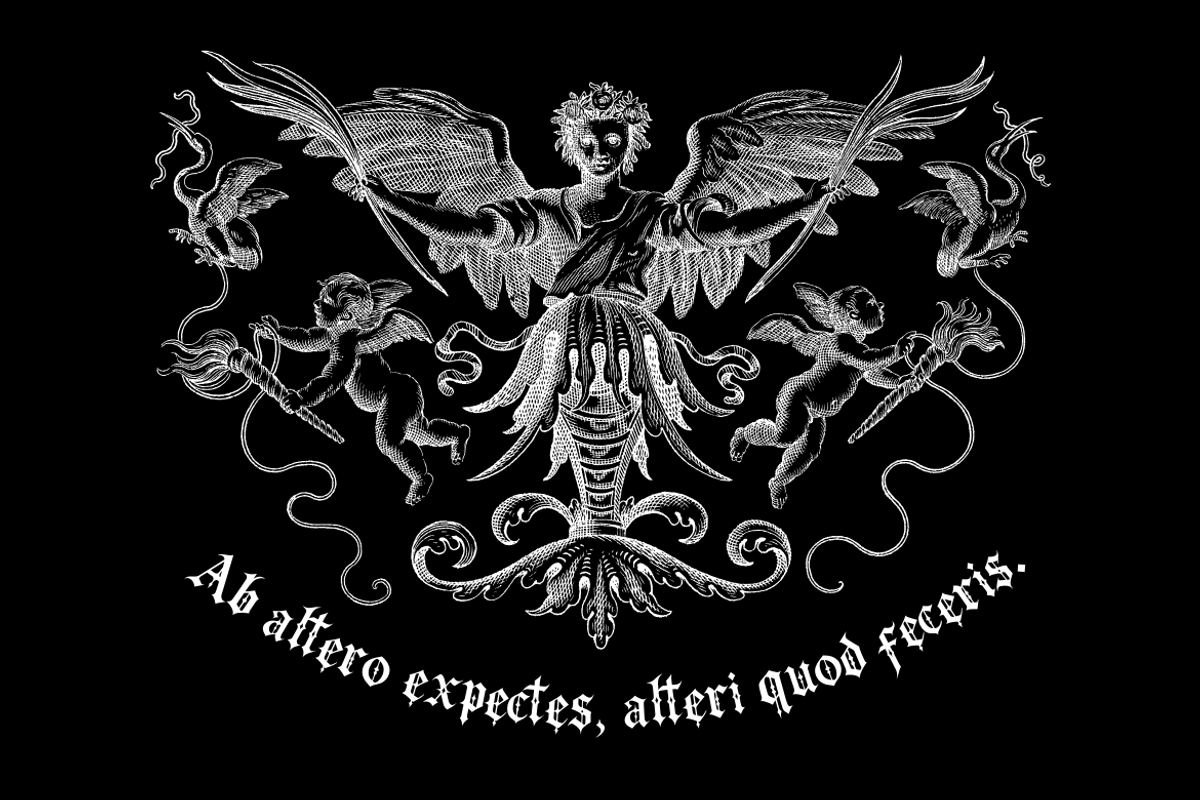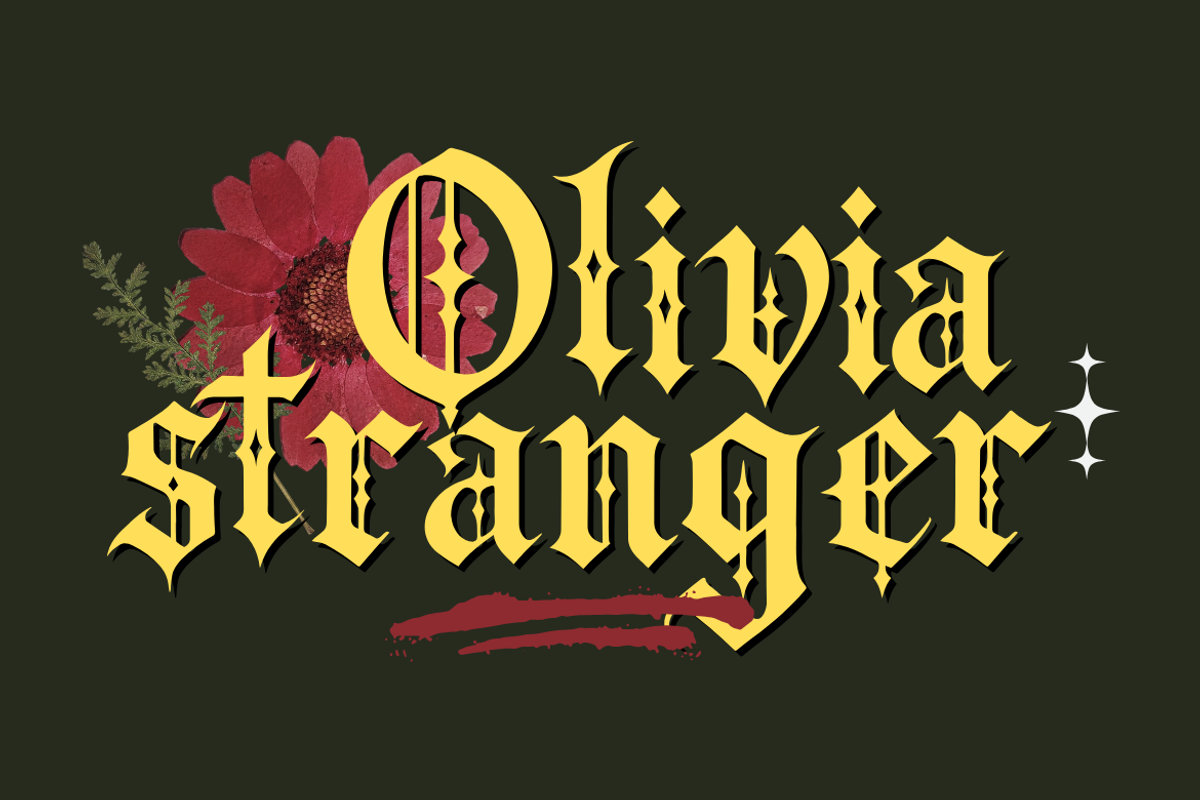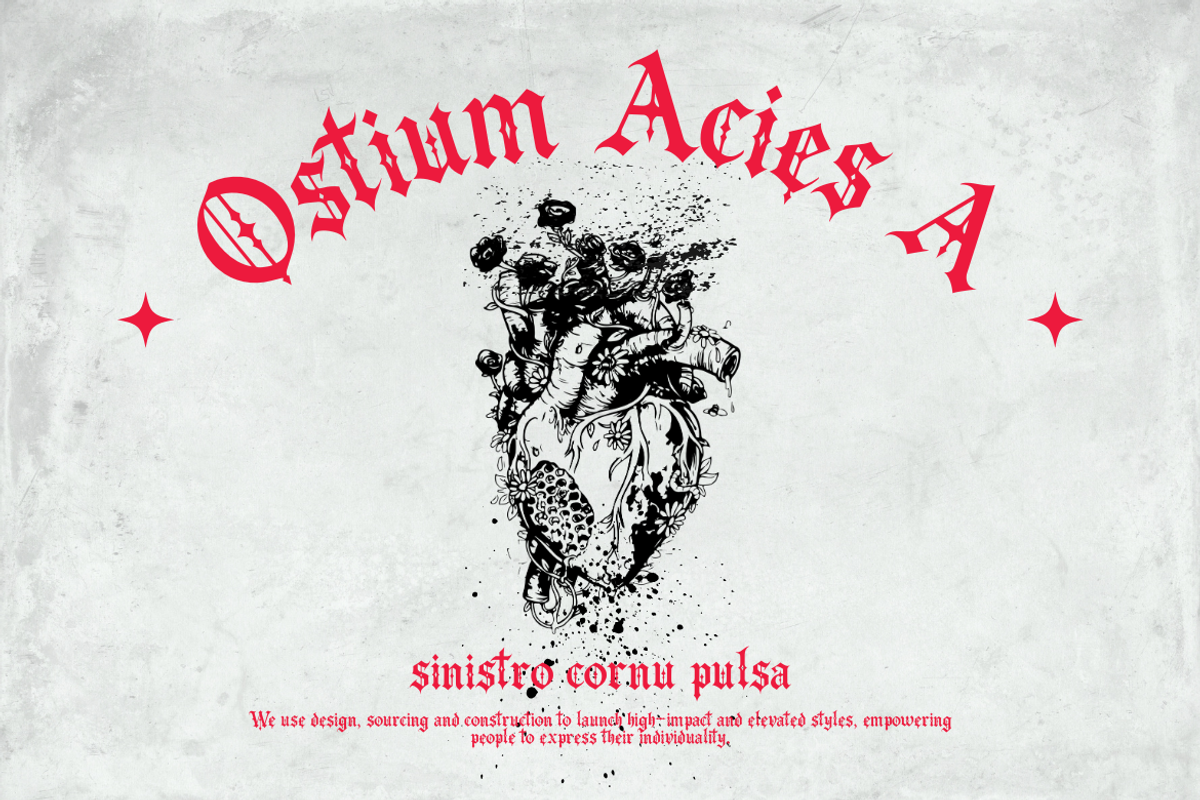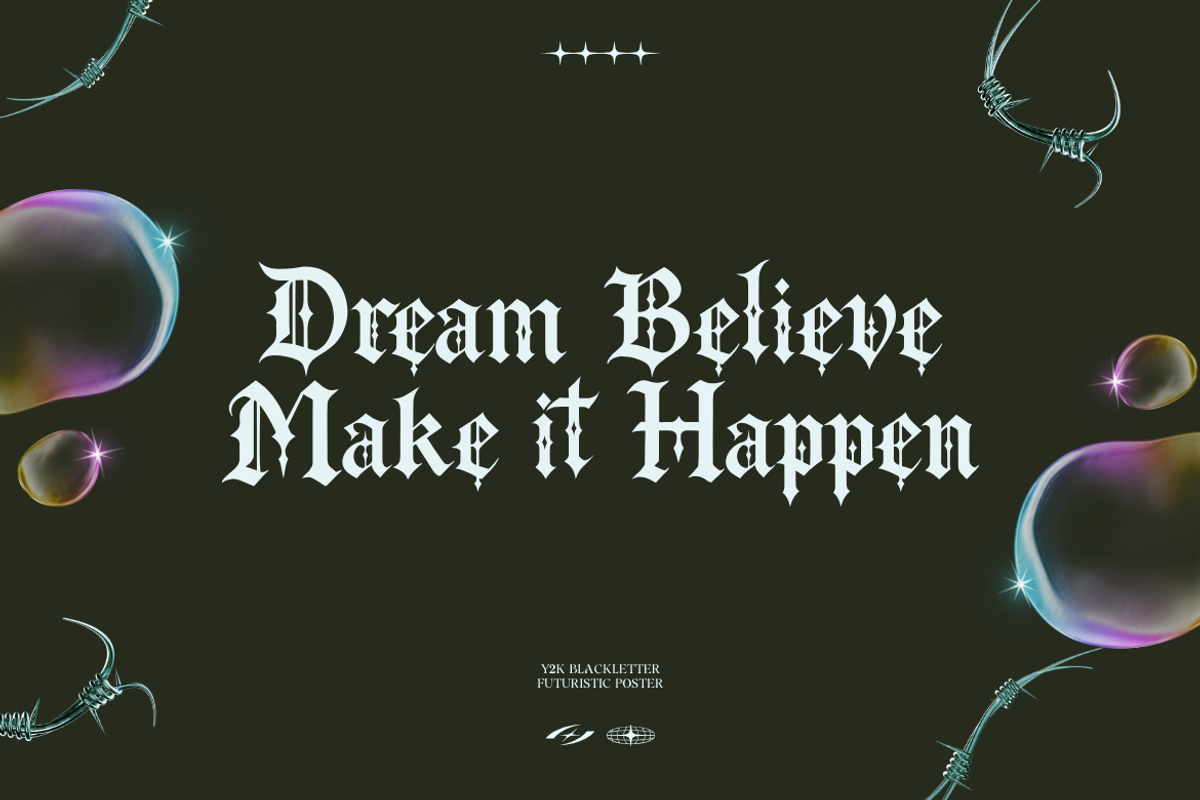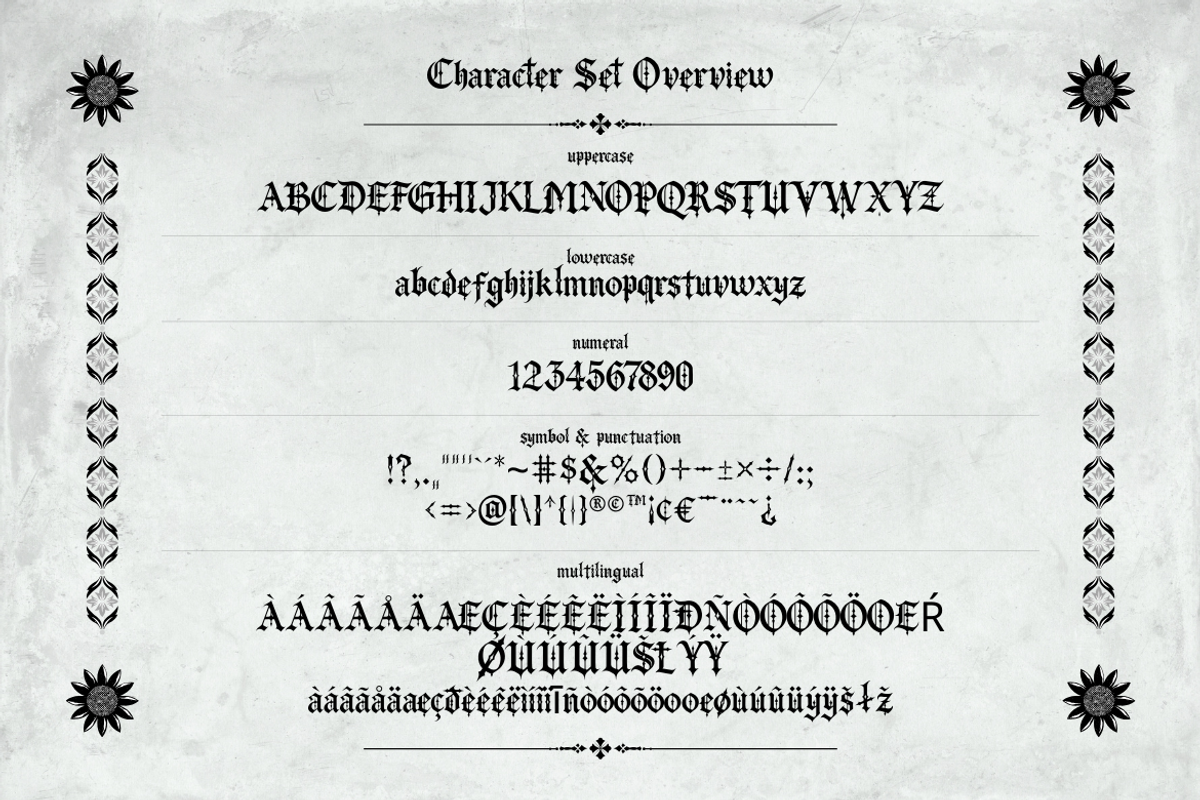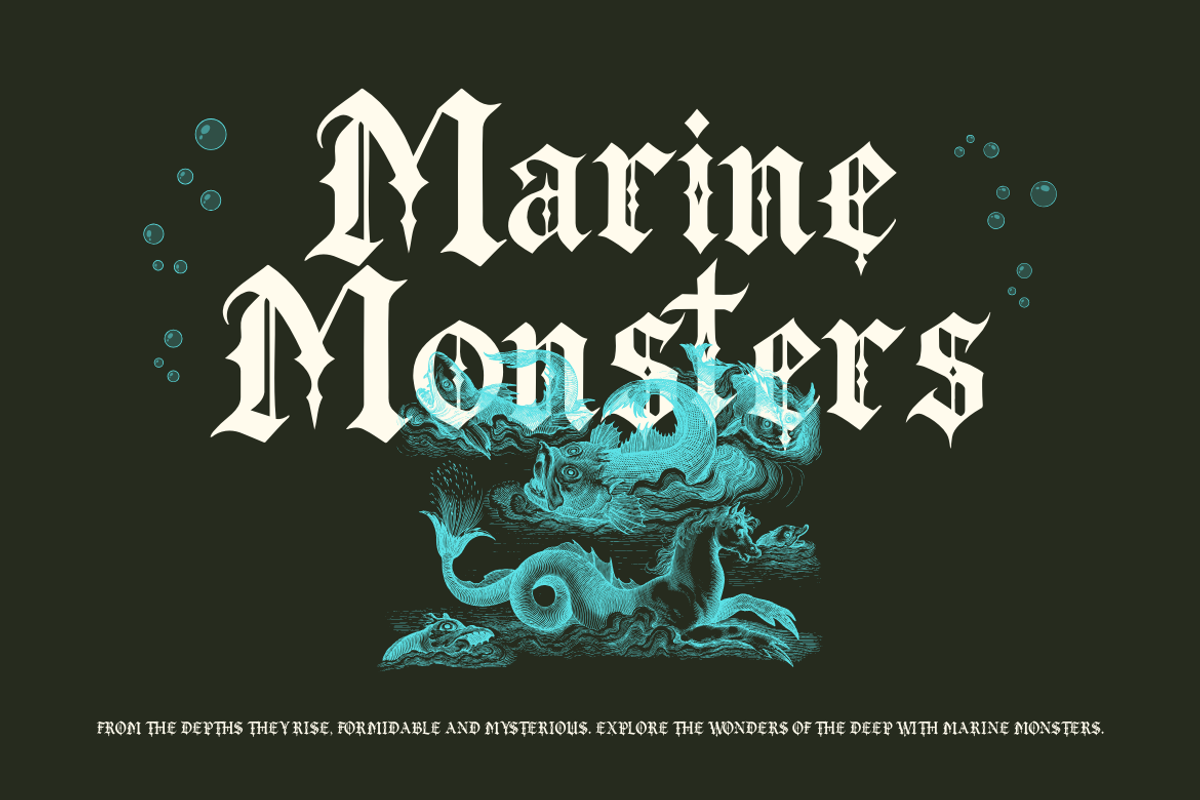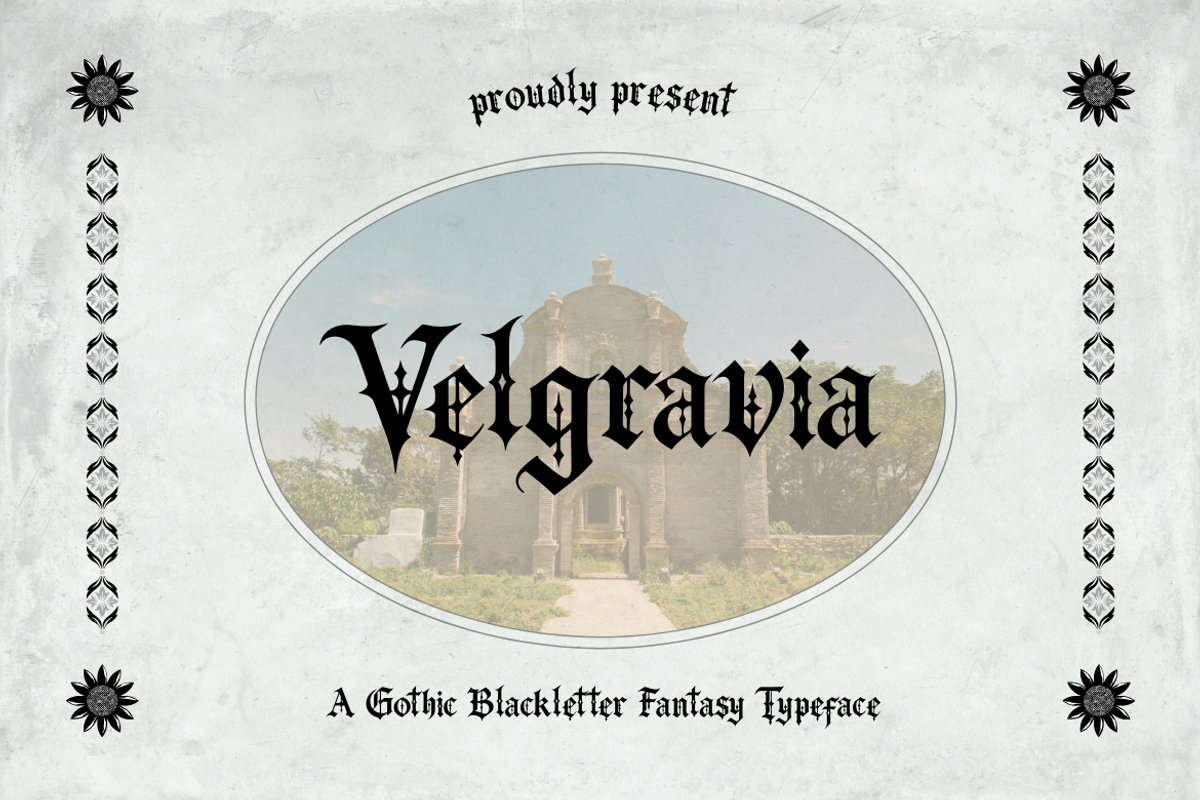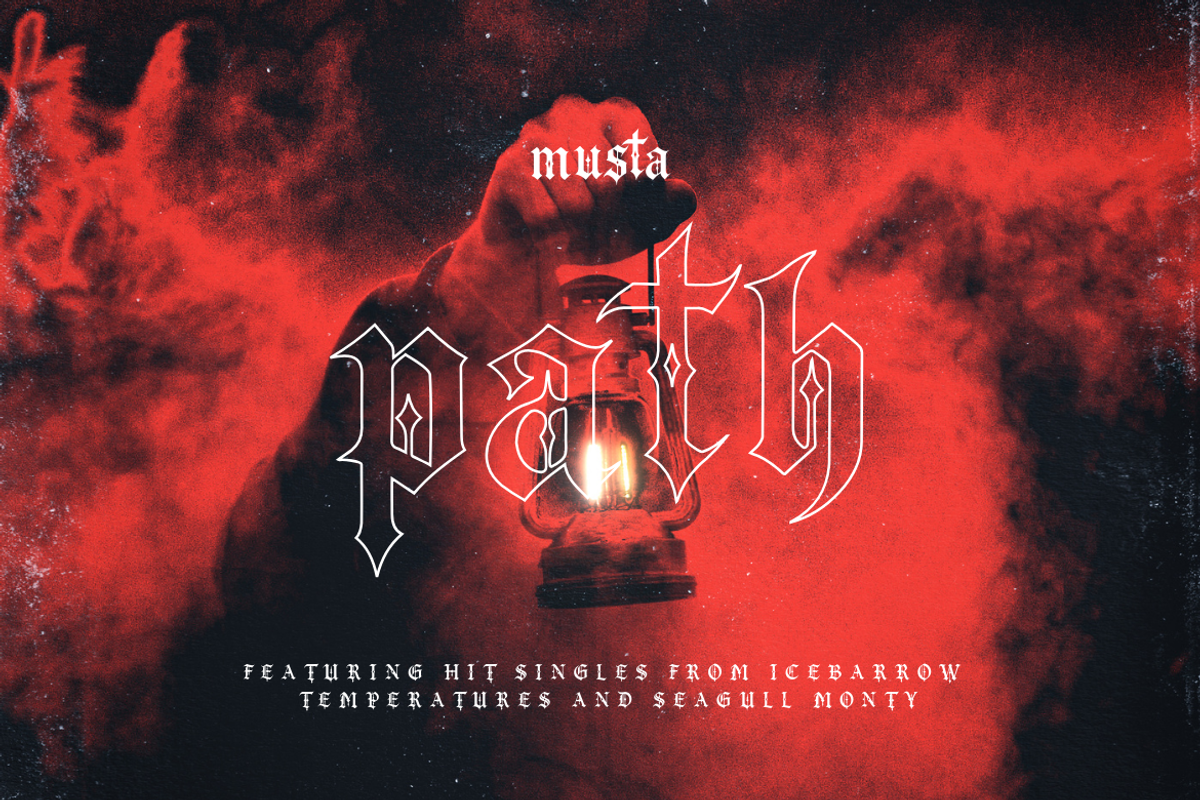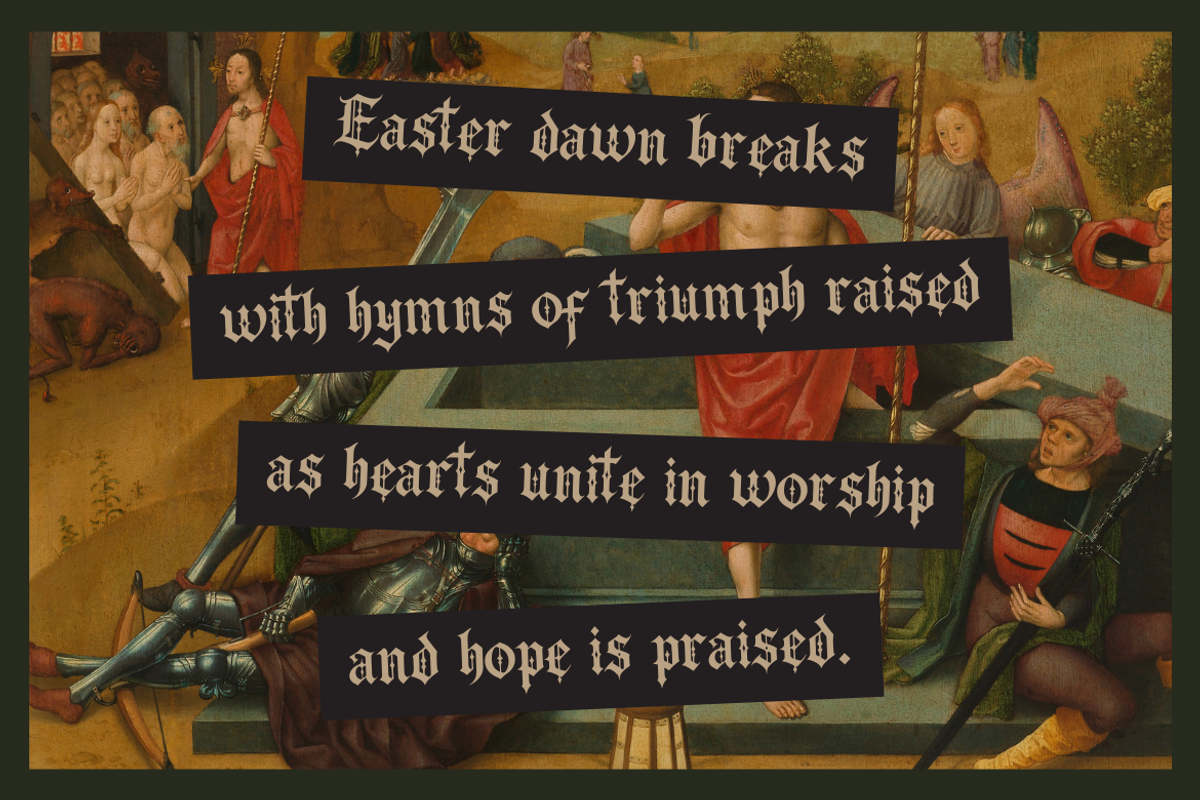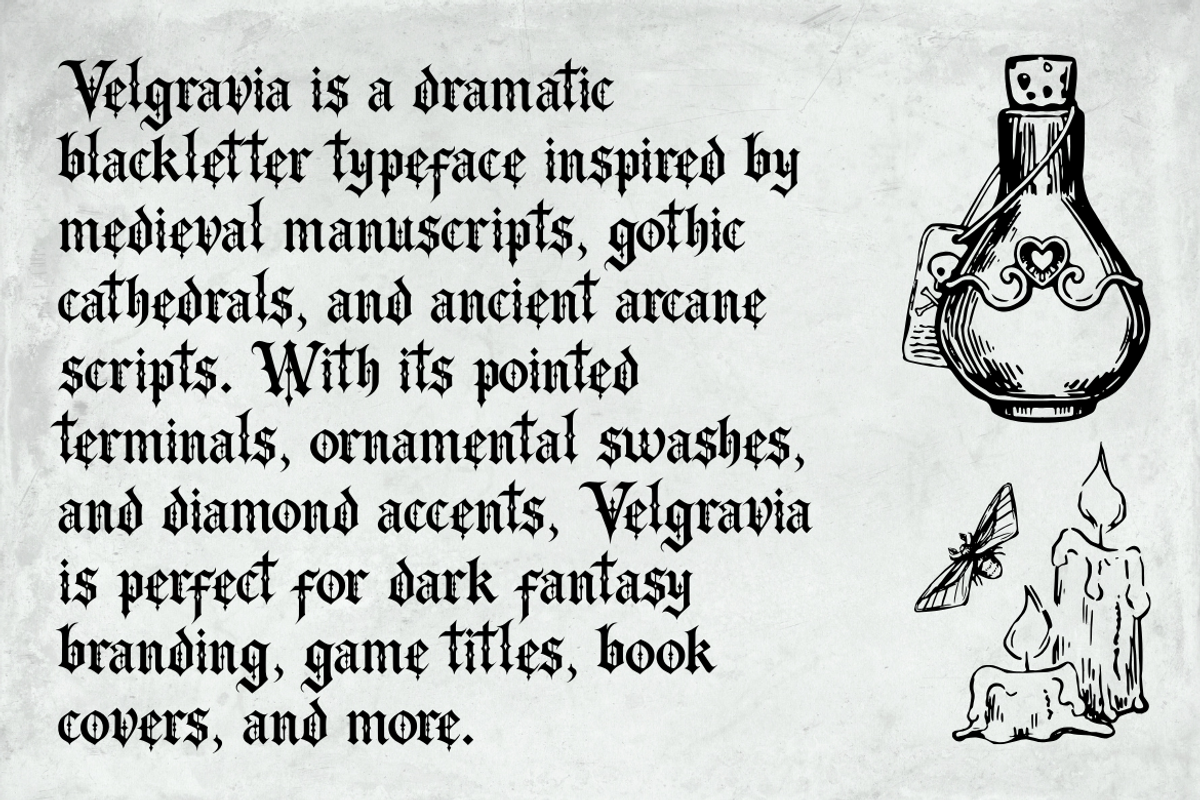
Velgravia – Gothic Blackletter Font
Velgravia – Gothic Blackletter Fantasy Typeface
Velgravia is a dramatic gothic blackletter typeface inspired by medieval calligraphy, fantasy manuscripts, and dark ornamental lettering. With its sharp terminals, diamond-shaped decorations, and elegant swashes, Velgravia brings a bold, mysterious energy to your design.
Perfect for fantasy book titles, game logos, metal band merchandise, or dark luxury branding, this typeface captures the essence of ancient elegance and modern edge.
- Uppercase A–Z
- Lowercase a–z
- Numbers & basic punctuation
- Bonus alternates for selected letters
Add a touch of arcane sophistication to your next project with Velgravia.